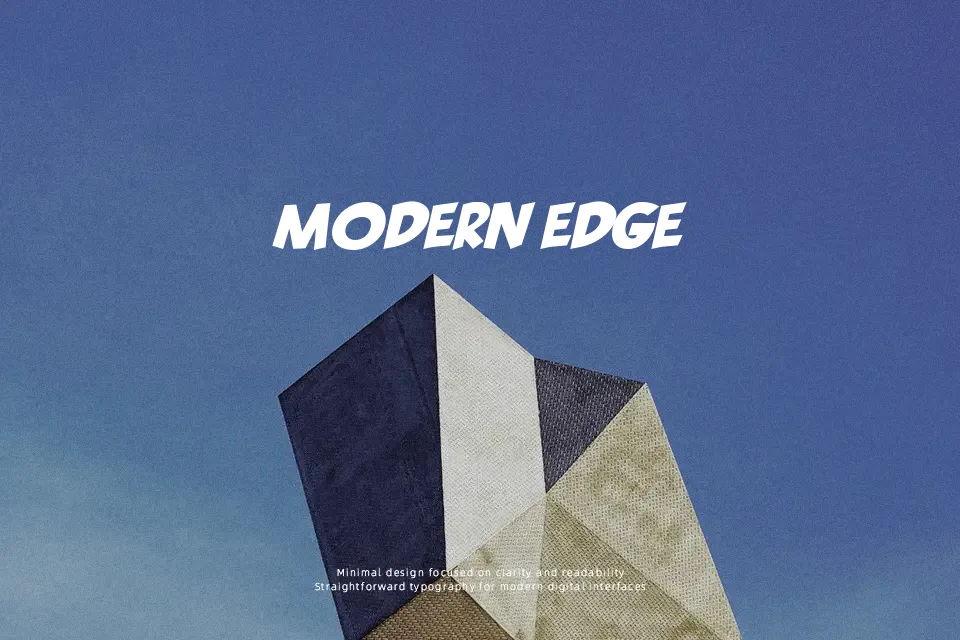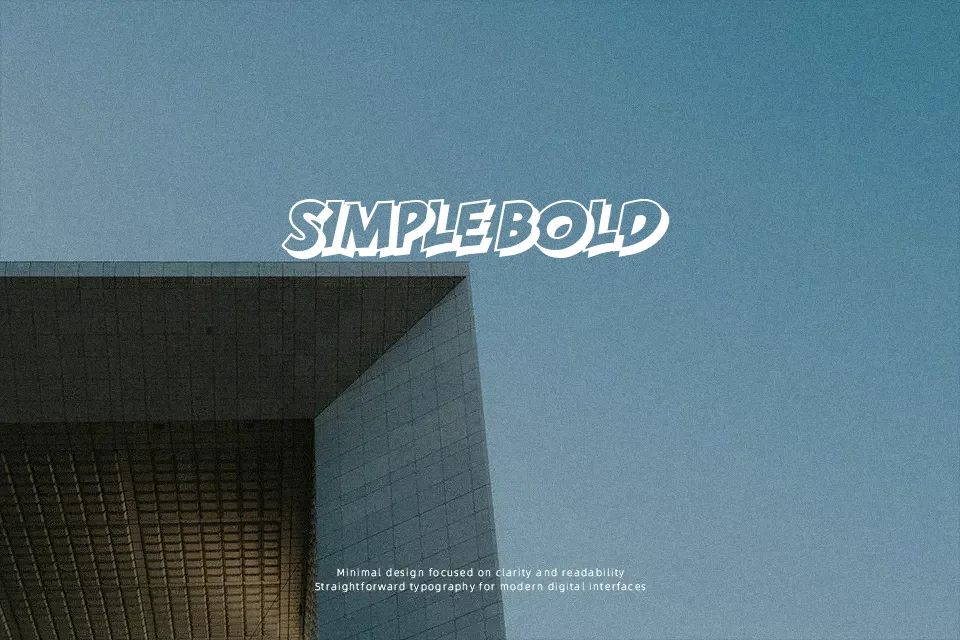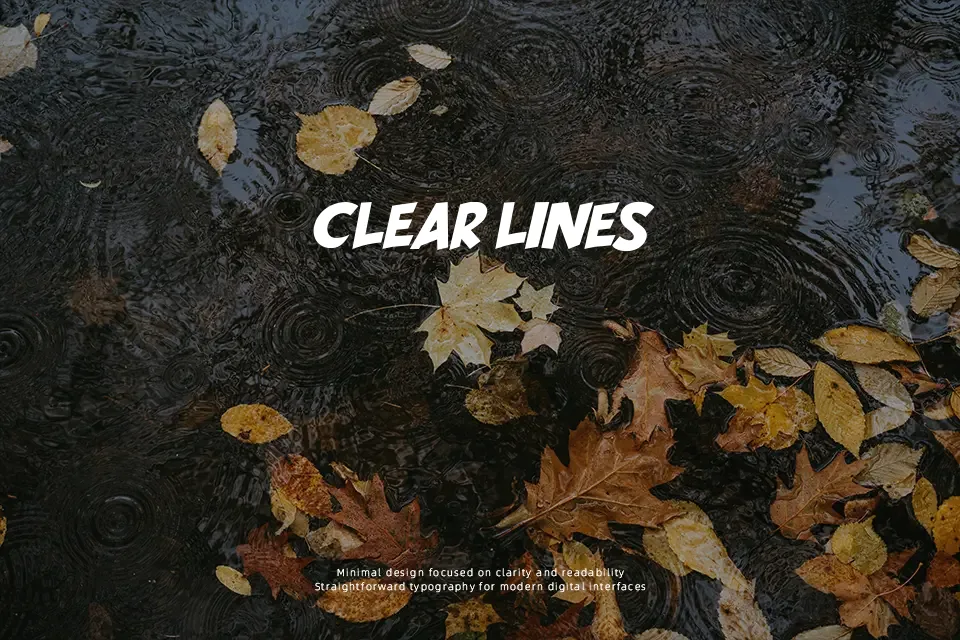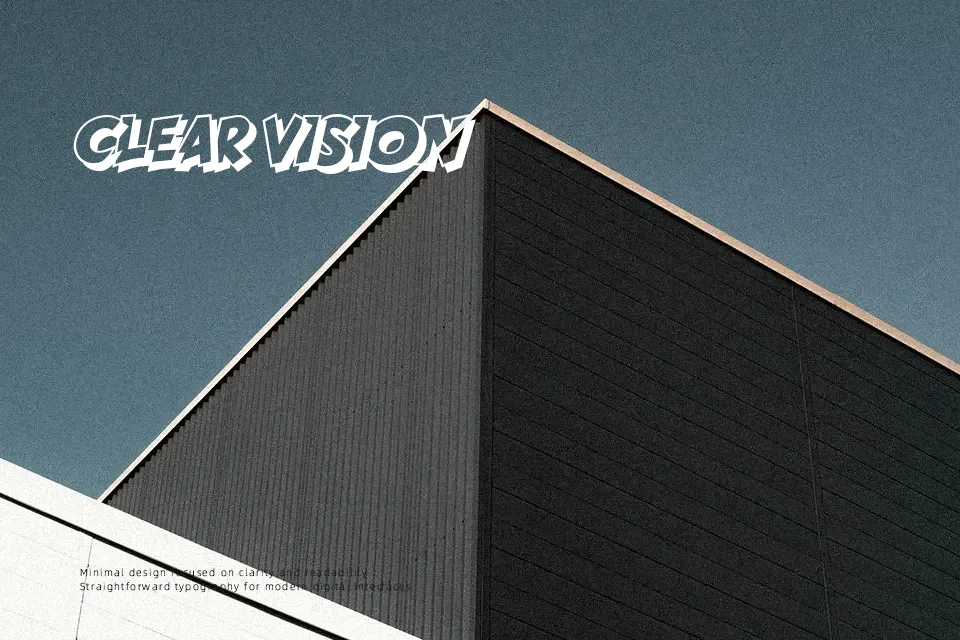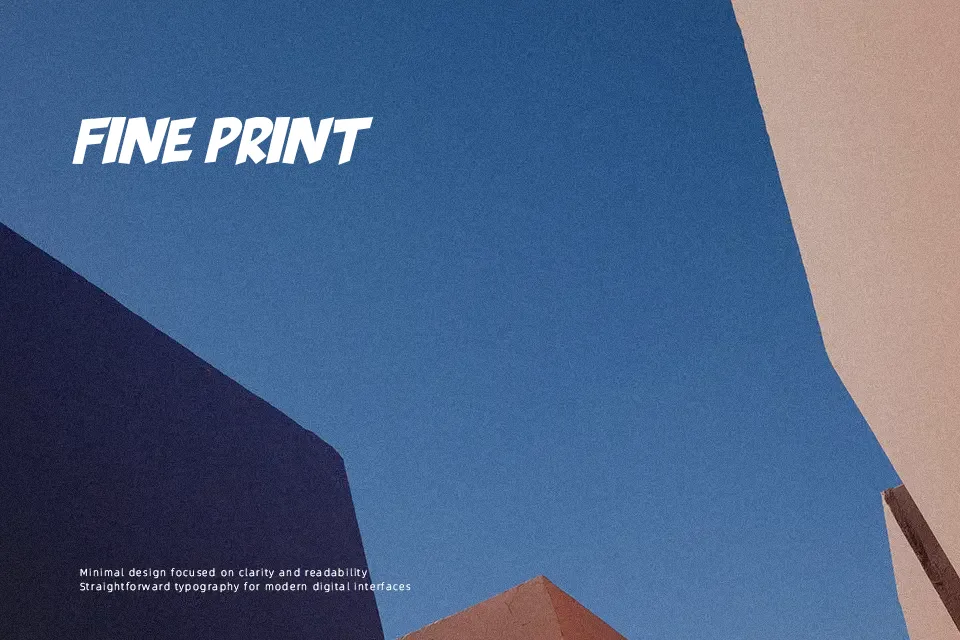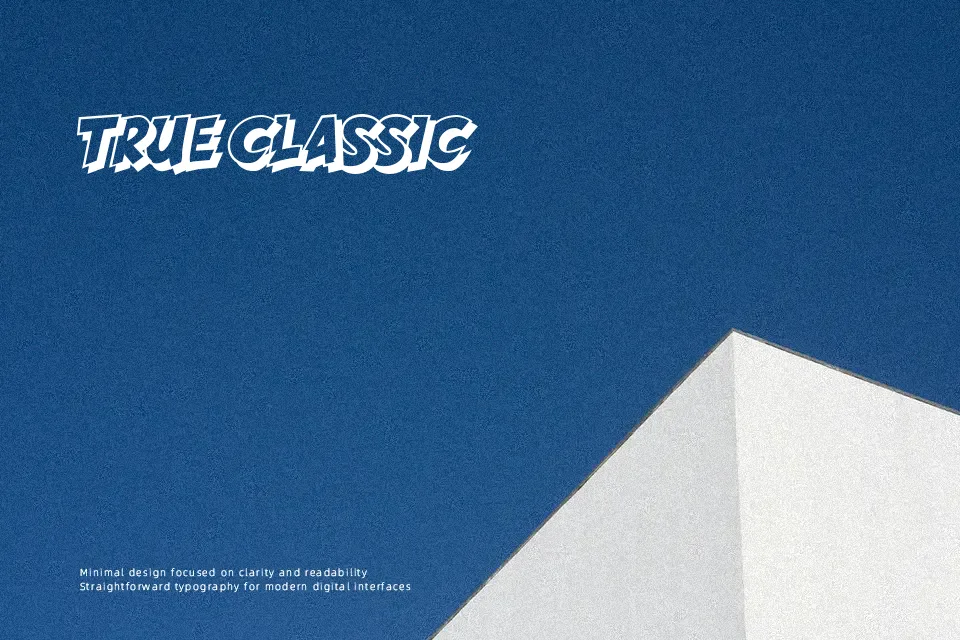
Simplicity Font
Graphic designs for youth apparel, event flyers, and food packaging gain noticeable punch from Simplicity Font. The typeface features heavy, uniform stroke weights paired with softened terminals and compact kerning, producing a punchy comic structure that stands out instantly on screen and in print. Balanced letter spacing prevents dense clusters from blurring together at medium and large scales, though the substantial mass of each character limits overall comfort across continuous paragraphs of text. In practical applications, the design delivers exceptional clarity in short headlines and emblem badges, providing immediate visual weight where subtle type would get overlooked.
Best For: children book titles,casual merchandise graphics,event flyers,food packaging
Not Ideal For: continuous body text,dense editorial layouts,legal contracts,small interface labels
Perfect for advertising, headline, and kids, with a bold and cartoon style.